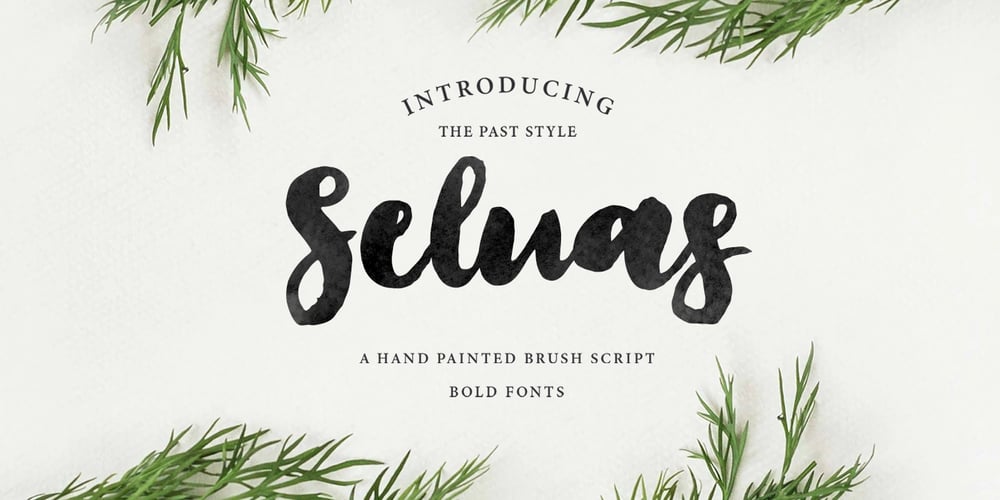
Seluas Handmade
Seluas Handmade font
Seluas Handmade Font Family was designed by Sarwo Edy and published by Siwox Studios. Seluas Handmade contains 1 styles and family package options. Seluas Handmade is a bold and beautiful brush lettered font. It’s perfect for using in ink or watercolour based designs or on its own as bold hand brushed lettering. Use it for websites, branding, weddings, social media, product design, stationery and advertising, etc. Seluas Handmade is versatile enough to add that natural nuance to any project where you need that to look real.